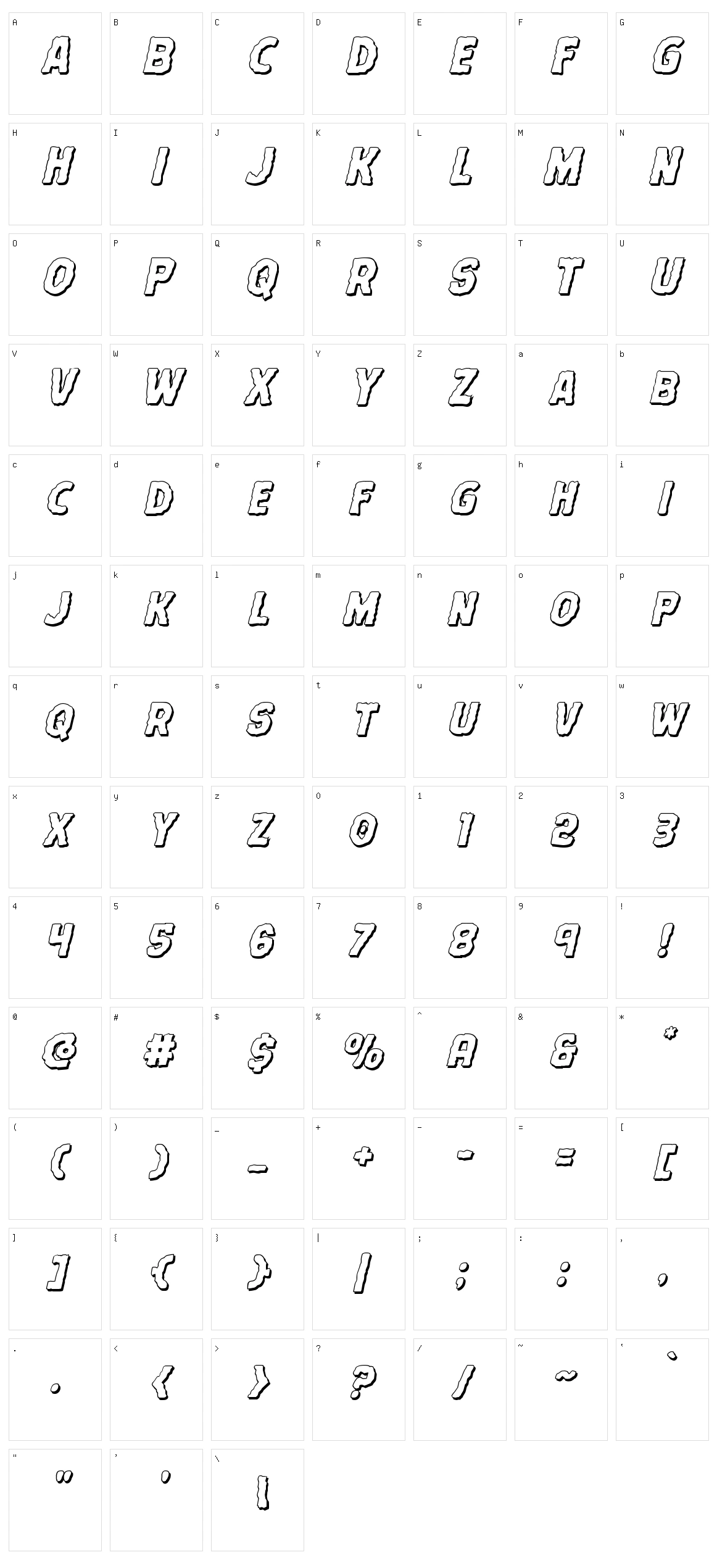
This font comes with the following 26 versions: Regular, Italic, Leftalic, Condensed, Condensed Italic, Expanded, Expanded Italic, Bold, Bold Italic, 3D, 3D Italic, Rotated, Rotated 2, Staggered, Staggered Italic, Staggered Rotalic, Mangled, Mangled Italic, Engraved, Engraved Italic, Punch, Punch Italic, Bevel and Bevel Italic.